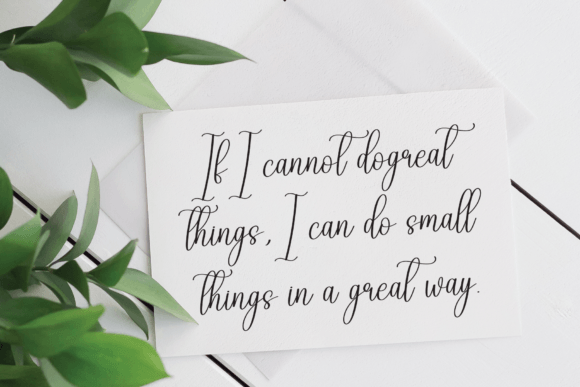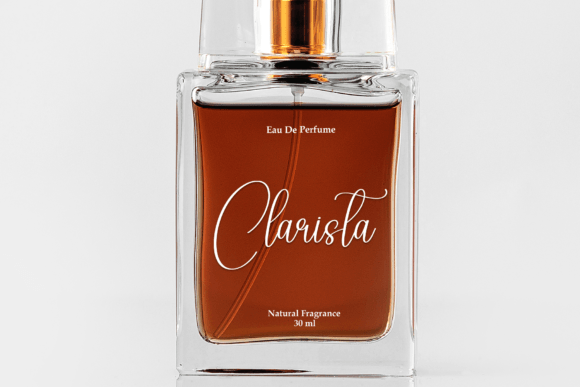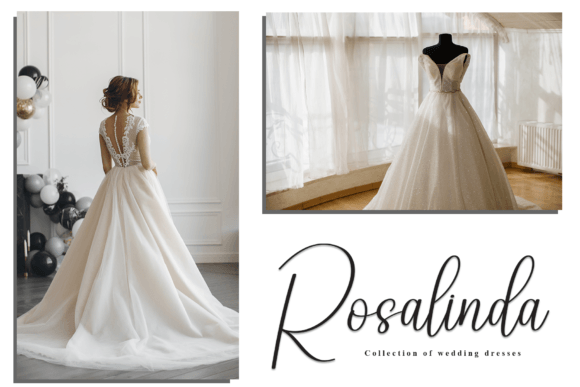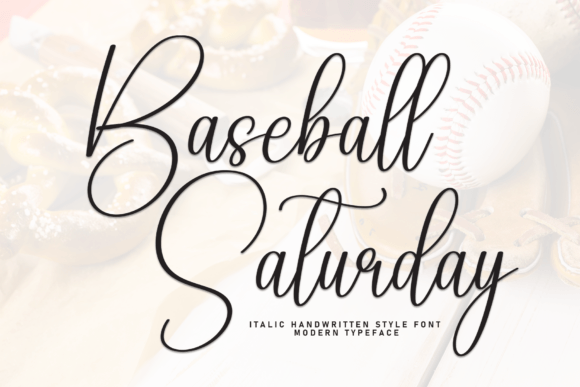
Introduction to Baseball Saturday Font
Baseball Saturday is a sweet and friendly handwritten font.
Why Choose Baseball Saturday Font?
Baseball Saturday Font offers exceptional quality and versatility, making it a valuable addition to your design toolkit. Whether you’re creating for personal projects or commercial use, Baseball Saturday Font delivers professional results.